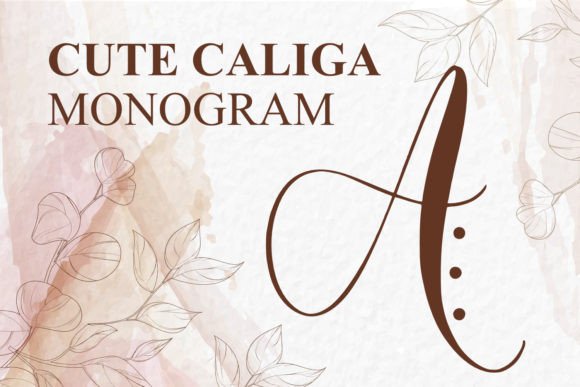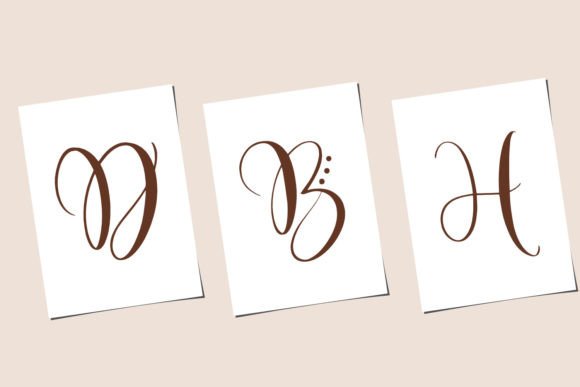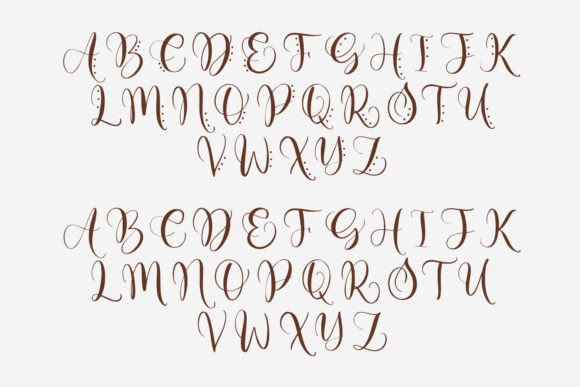
Monogram Cute Caliga Font is a beautiful monogram font. This font will add a feeling of love to any craft idea, be it wedding crafts, invitations, greeting cards, Valentines, logos, and others.
Monogram Cute Caliga Font